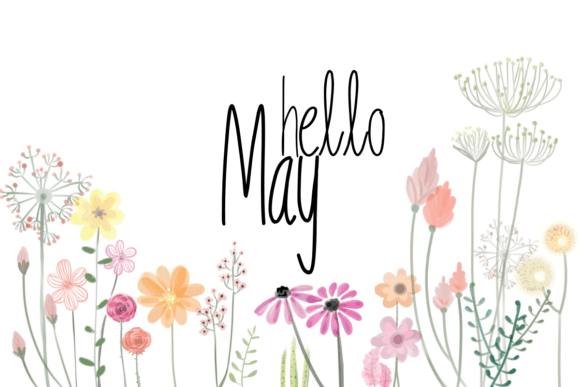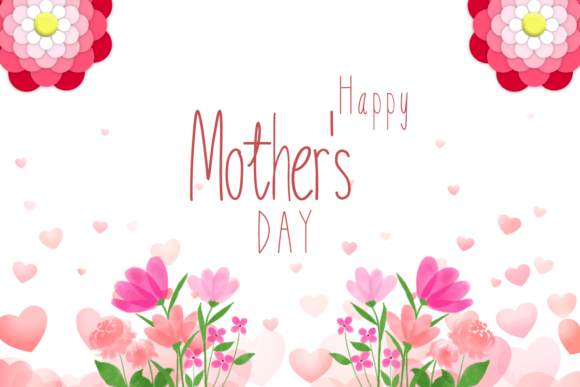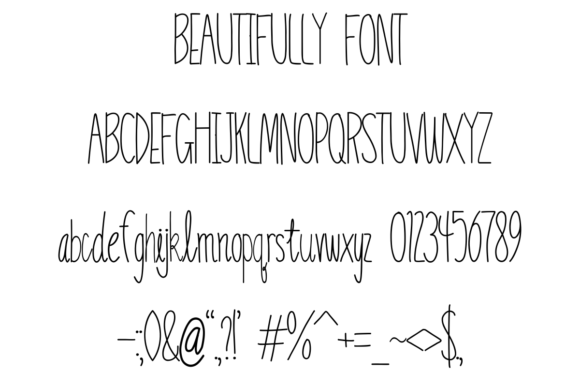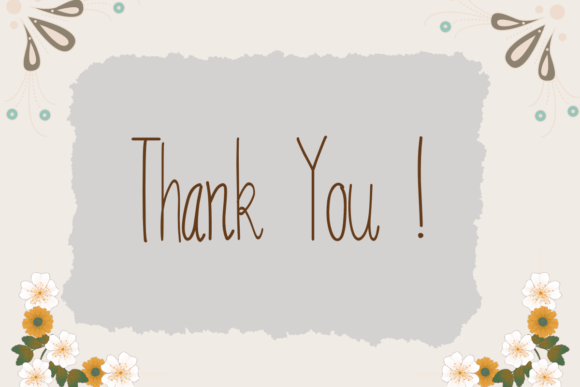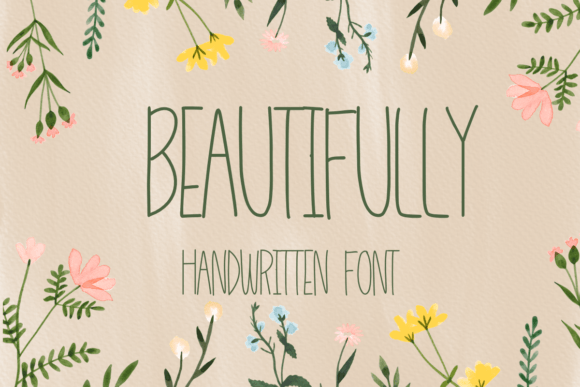
Introducing Beautifully Font: The Sweet and Friendly Handwritten Font for Your Design Needs
Are you a designer, crafter, or DIY enthusiast looking for a font that can add a touch of warmth and personality to your projects? Look no further than Beautifully Font, a sweet and friendly handwritten font that’s perfect for a wide range of design applications. In this article, we’ll take a closer look at what makes Beautifully Font so special and how you can use it to elevate your designs.
What is Beautifully Font?
Beautifully Font is a carefully crafted handwritten font that’s designed to bring a sense of joy and playfulness to your designs. With its smooth, flowing lines and whimsical charm, this font is sure to capture the hearts of anyone who sees it. Whether you’re creating digital designs, crafting handmade cards, or planning a wedding, Beautifully Font is the perfect choice for adding a personal touch to your work.
Key Features of Beautifully Font
• Cute and Fun: Beautifully Font is designed to be fun and playful, making it perfect for designs that need a lighthearted touch.
• Sweet and Friendly: The font’s smooth, flowing lines give it a warm and approachable feel that’s sure to delight.
• Handwritten: With its handwritten feel, Beautifully Font adds a personal touch to any design.
• Versatile: This font is suitable for a wide range of design applications, from digital designs to handmade crafts.
Uses for Beautifully Font
So, what can you use Beautifully Font for? The possibilities are endless! Here are a few ideas to get you started:
• Wedding Invitations: Add a touch of romance and whimsy to your wedding invitations with Beautifully Font.
• Digital Designs: Use Beautifully Font to create fun and engaging digital designs, such as social media graphics, blog posts, and more.
• Handmade Cards: Add a personal touch to your handmade cards with Beautifully Font.
• Crafts: Beautifully Font is perfect for a wide range of crafts, from scrapbooking to DIY home decor.
• Presentations: Use Beautifully Font to add a touch of personality to your presentations and make them more engaging.
Why Choose Beautifully Font?
With so many fonts to choose from, why should you choose Beautifully Font? Here are a few reasons:
• Unique: Beautifully Font is a one-of-a-kind font that’s sure to stand out from the crowd.
• Easy to Read: Despite its playful feel, Beautifully Font is easy to read, making it perfect for designs that need to communicate a message.
• Customizable: Beautifully Font can be customized to fit your design needs, from adjusting the size and color to adding your own flair.
Tips for Using Beautifully Font
Here are a few tips for getting the most out of Beautifully Font:
• Pair it with Other Fonts: Beautifully Font pairs well with other fonts, so don’t be afraid to experiment with different combinations.
• Use it for Headings: Beautifully Font is perfect for headings and titles, where its playful feel can really shine.
• Add a Personal Touch: Use Beautifully Font to add a personal touch to your designs, whether it’s a handmade card or a digital graphic.